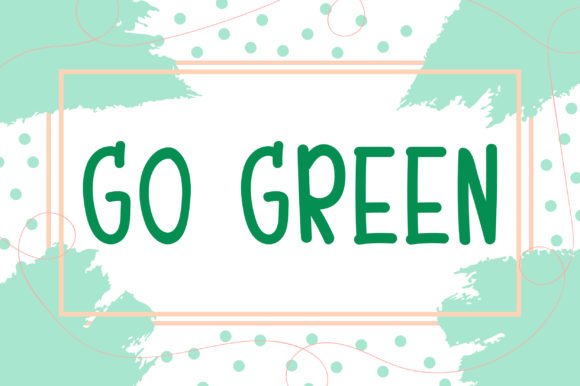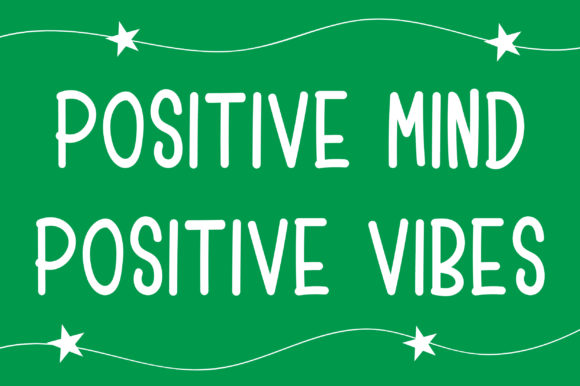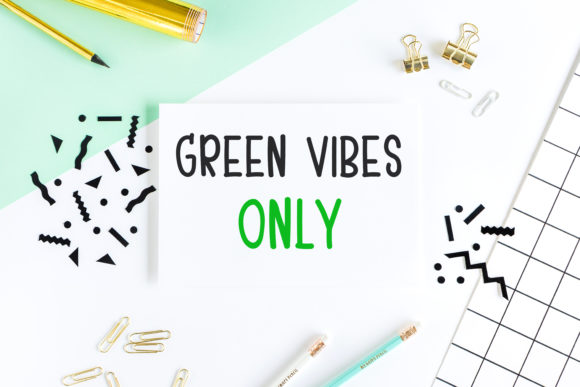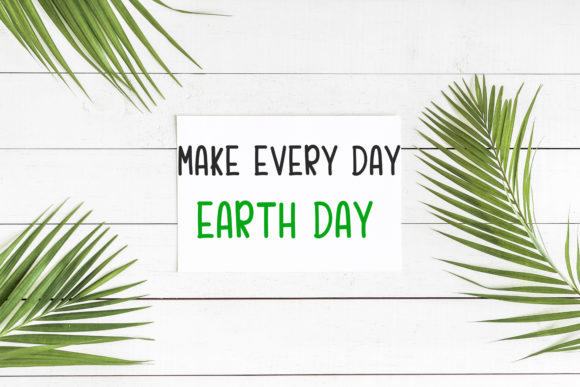
Green Vibes Font
About Green Vibes Font
Green Vibes is a cute and simple handwritten font. A little bit quirky, this font looks incredibly adept on a wide variety of contexts!